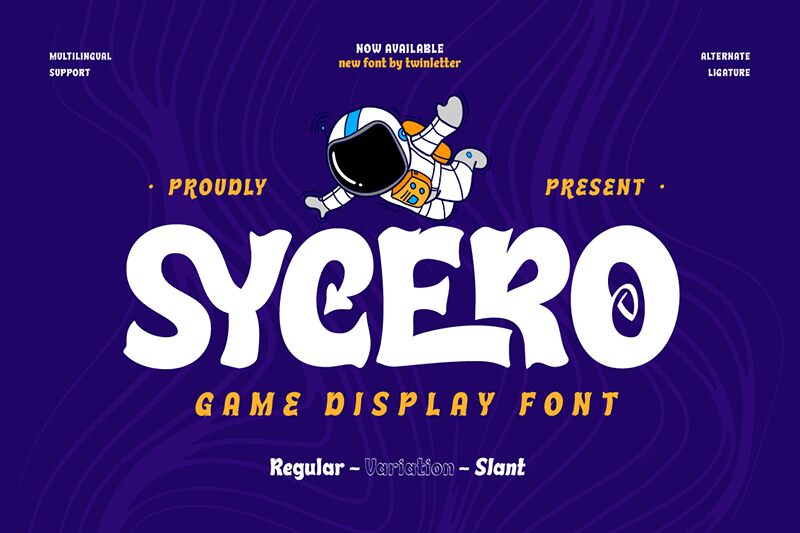
Sycero font family designed by twinletter invites your audience to a whimsical typographic experience. In addition to its giant characters, the glyphs were inspired in general by retro, cartoonish, groovy, and Art Deco elements, giving them an expressive, playful, dynamic, yet stylish appearance. As an attention-grabbing font family, it stays contemporary and suitable for gaming and other interesting applications. It consists of two font styles for achieving the perfect balance between being broad, energetic, and maintaining a bold presence overall.
The casual, yet strong mood of Sycero makes it a great pick for advertising projects based around visuals, like streetwear/shoe/fashion ads, animated video graphics, apps, etc. Moreover, it conveys a vibrant feeling in projects like food and beverage packaging, book and album covers, sports magazines, social media posts, branding, and more.